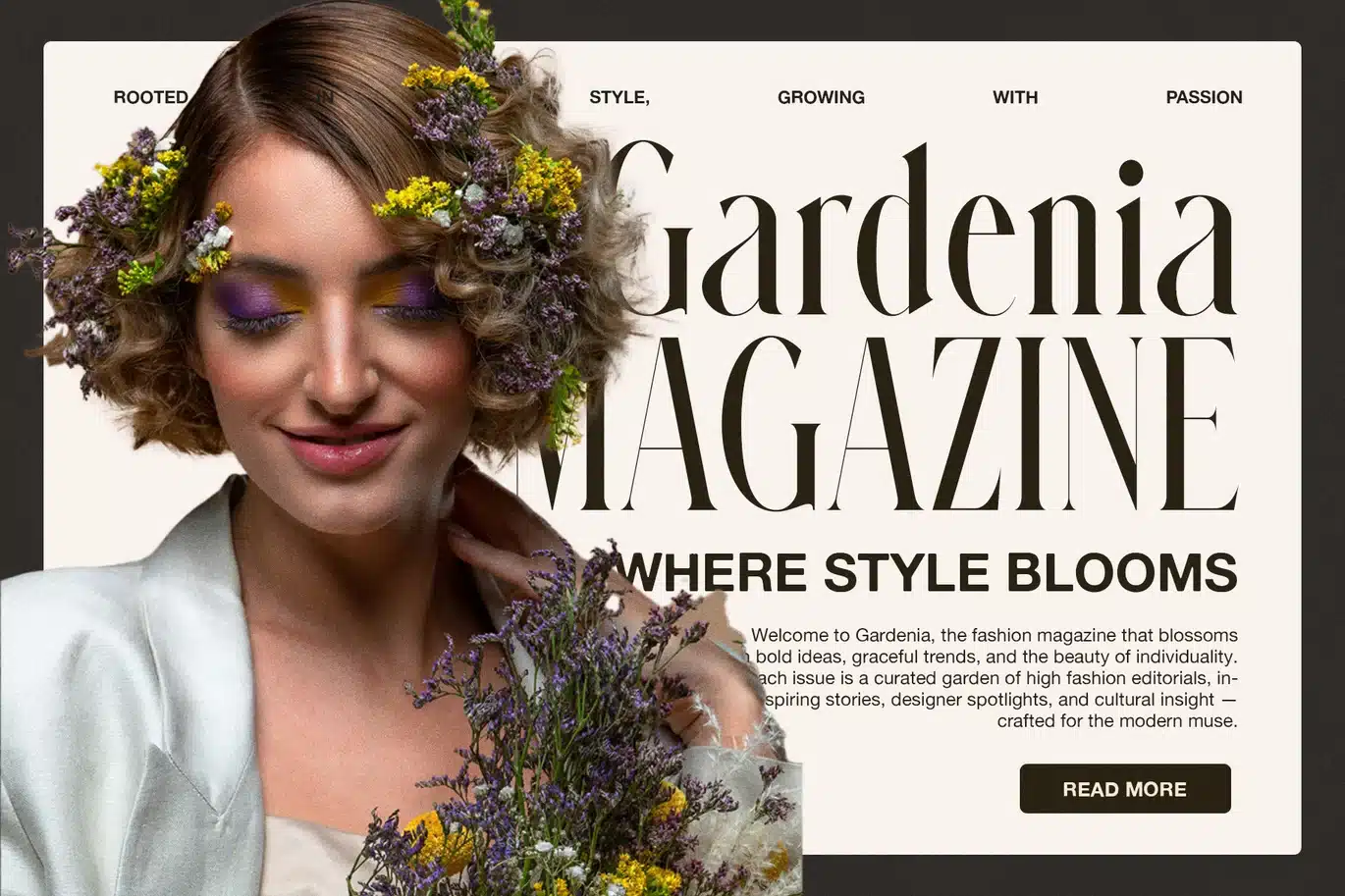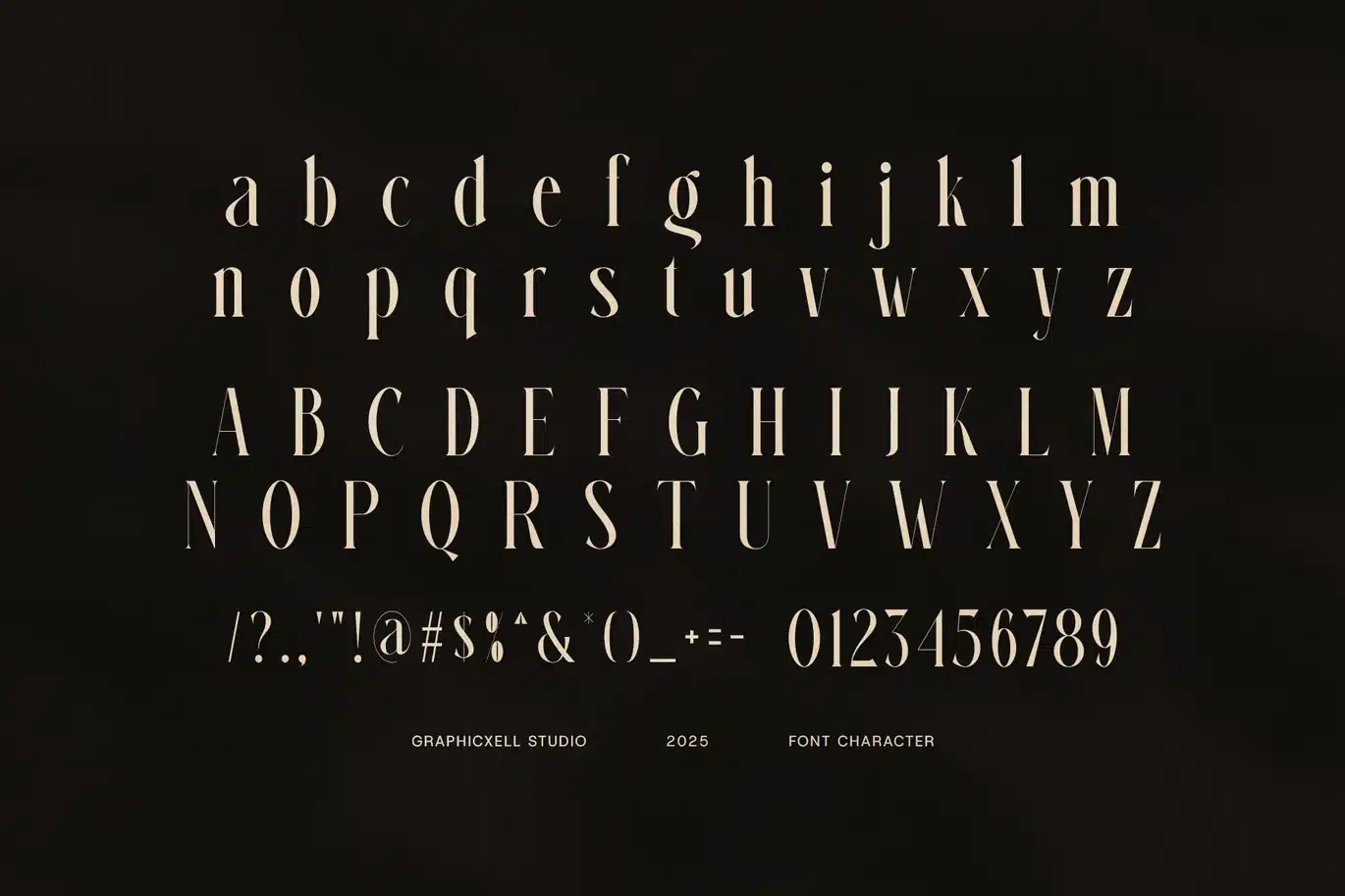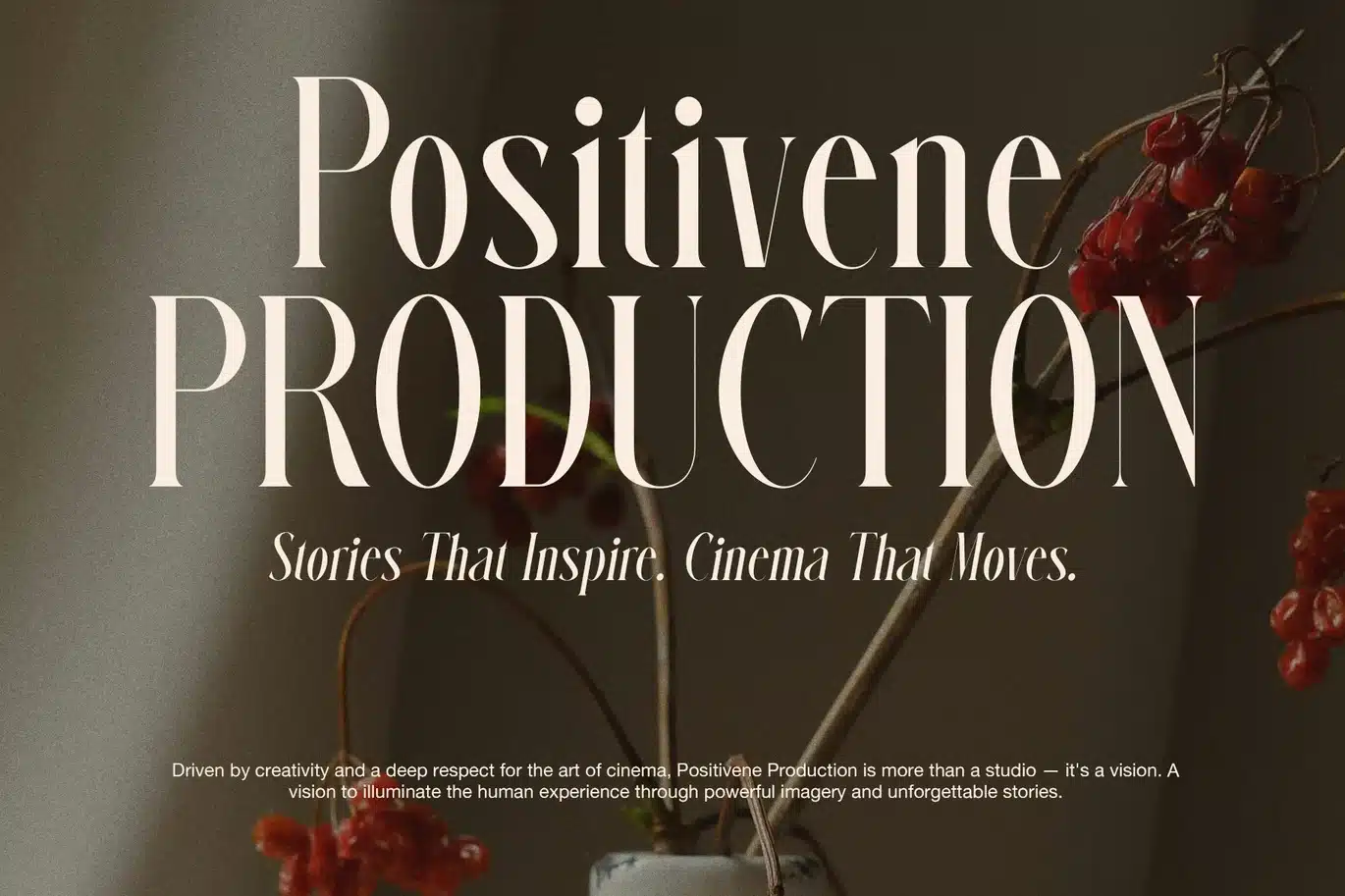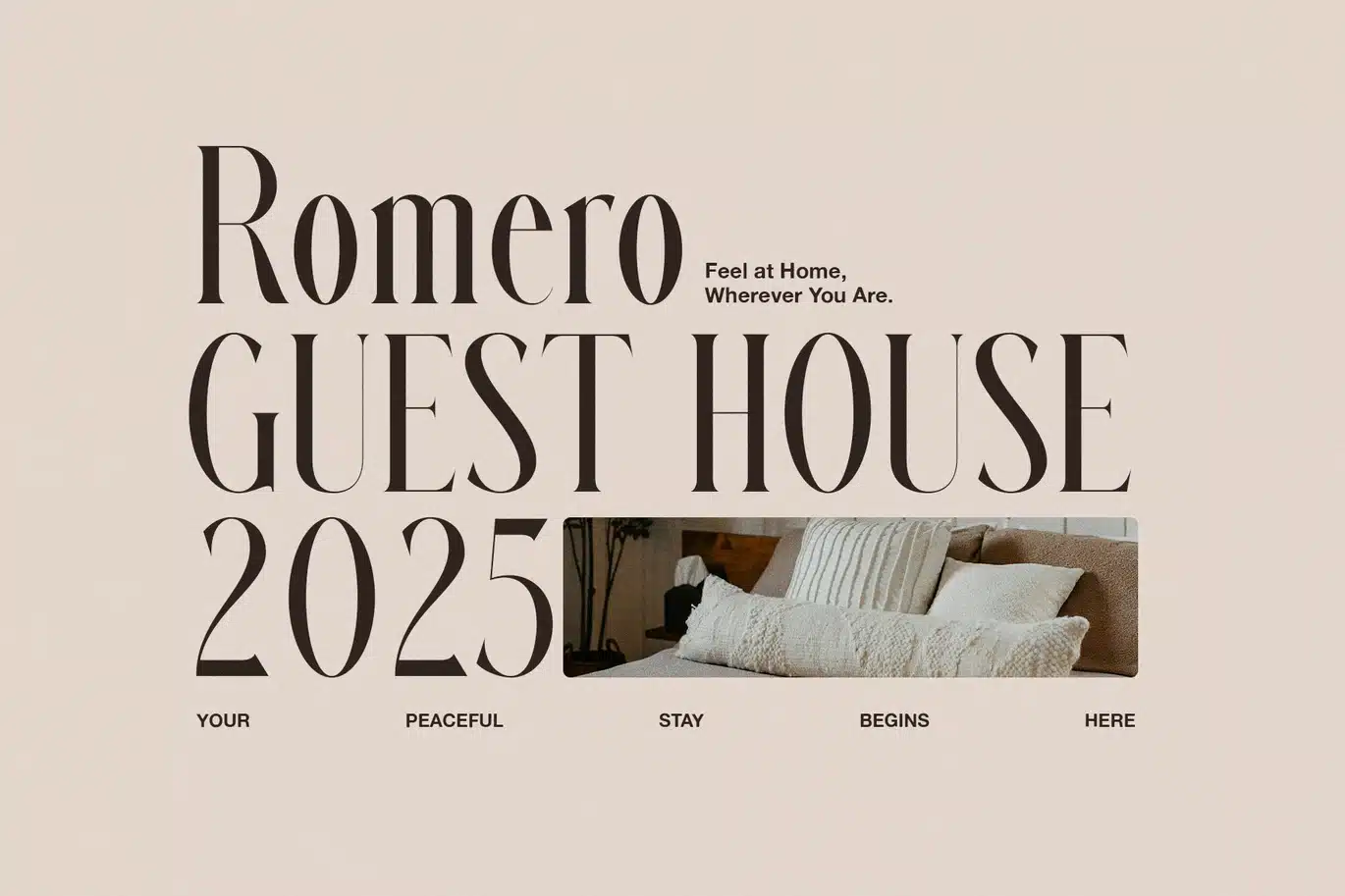
Monte Elegant Serif – Stylish Classic Typeface Font
Monte Elegant Serif is a beautifully crafted font that blends timeless serif style with modern elegance. Its smooth curves and sharp edges create a refined look, making it perfect for luxury brands, editorial layouts, invitations, and more. This font delivers both style and clarity, ensuring your designs stand out with sophistication.
Furthermore, Monte is designed with readability in mind. Its well-balanced letterforms and clean lines make it easy to read at all sizes. Whether for headlines or body text, this font maintains a polished appearance. It also supports multiple languages, making it versatile for international projects.
Moreover, Monte includes a range of OpenType features, such as ligatures and stylistic alternates, which offer flexibility to customize your typography. Thanks to its classic yet fresh design, Monte works well on print materials and digital platforms alike. This font ensures your project has a high-quality, professional finish every time.
Key features include:
Elegant serif font with smooth curves and sharp edges
Clear and readable letterforms
Perfect for headlines and body text
Supports multiple languages
Includes OpenType features like ligatures and alternates
Optimized for print and digital use
Stylish serif with modern elegance
Clear and easy to read
Great for branding, editorial, and invitations
Multilingual support for global use
Optimized for both print and web
OpenType features for design flexibility
In conclusion, Monte Elegant Serif is a versatile and elegant choice that enhances any creative project with class and clarity.